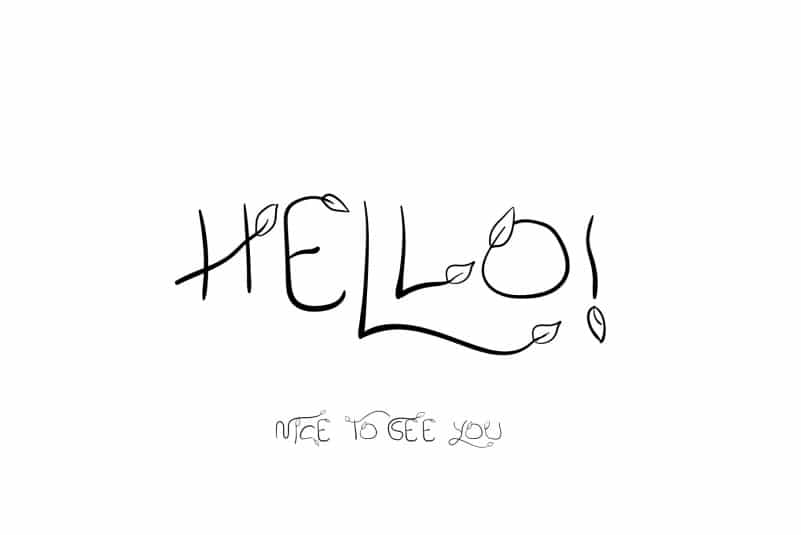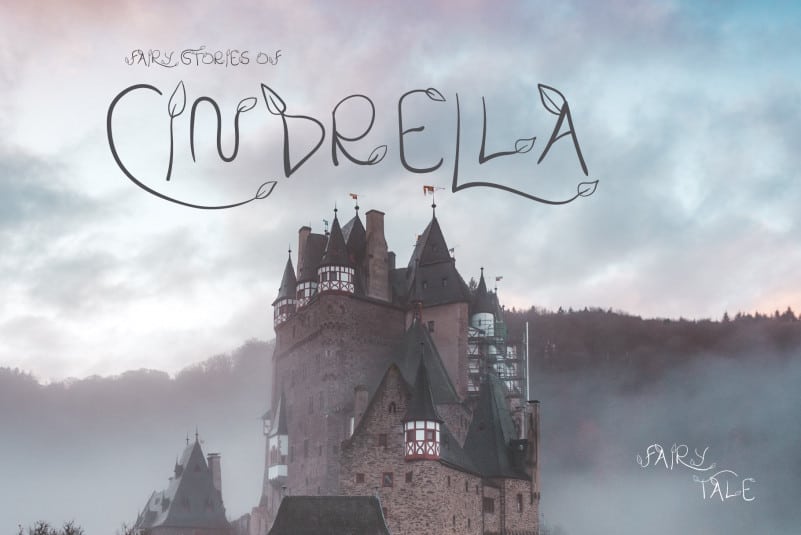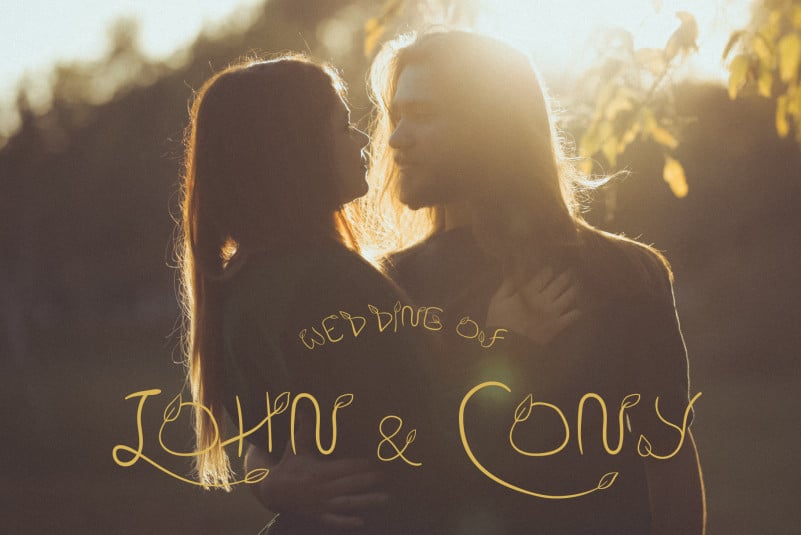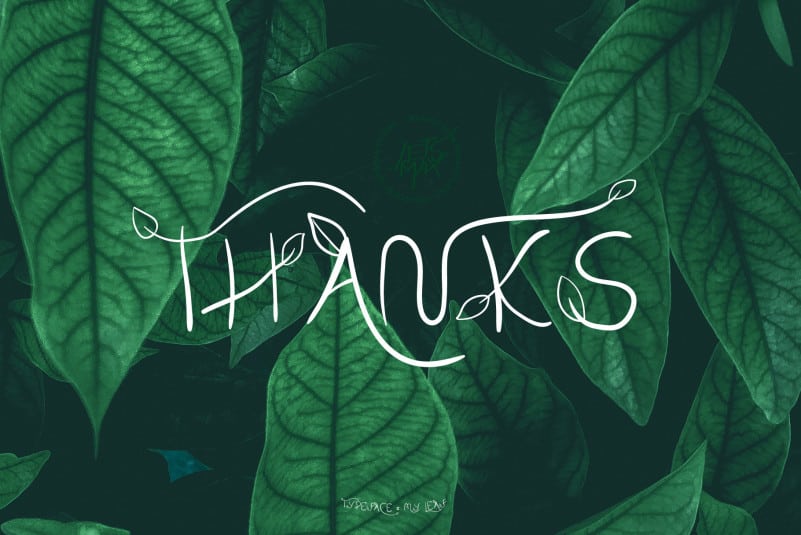
My Leaf Style Font
My Leaf Style Font is a font created from natural inspiration where the leaves are the key. suitable for projects, events, or parties with the theme of nature
My Leaf Style Font gives a gorgeous feel to a variety of branding projects, logos, wedding designs, social media posts, advertisements, and so much more. Let your imagination run free!